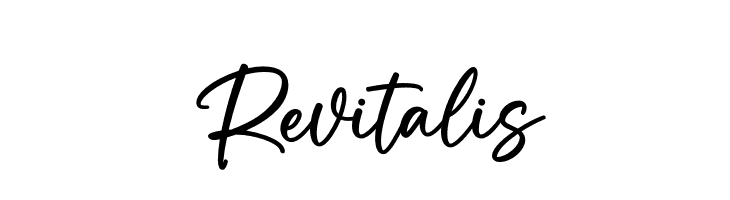
A bold, expressive script font with flowing, cursive letterforms and high contrast.
A dynamic, expressive handwritten font with fluid, cursive letterforms.
Playful handwritten font with a friendly look.
Lively handwritten script font.